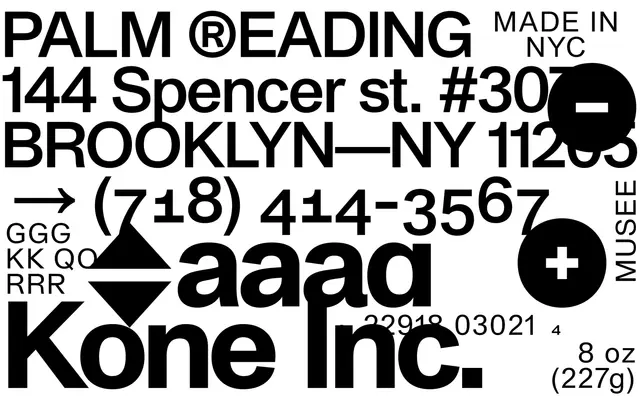
Syndicat Grotesk
A sixteen-style grotesque sans from Edition Studio, spanning Ultra Light to Heavy with matching italics and an extensive OpenType feature set.
Eight weights from Ultra Light to Heavy each come with a corresponding italic, giving the family solid coverage for text and display work. The OpenType feature set is thorough, including old style and tabular figures, fractions, scientific inferiors, ordinals, and multiple stylistic sets. The specimen leans on conceptual writing as demonstration text, suggesting an audience comfortable with art and culture contexts.
The name and visual presentation point to a grotesque sans-serif tradition, with a broad weight range and italic companions typical of contemporary grotesque families.